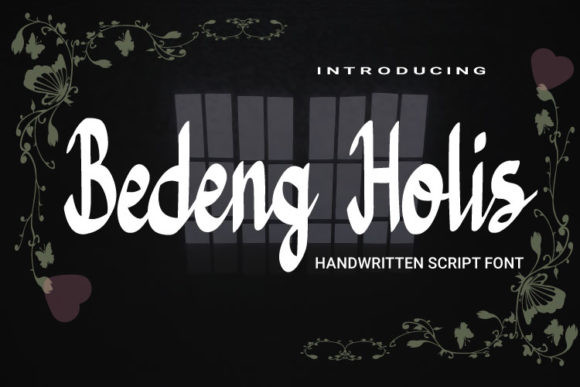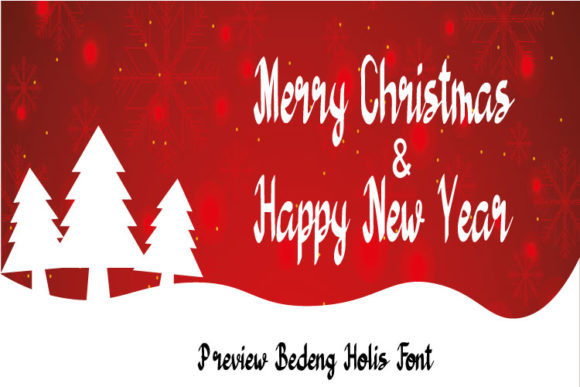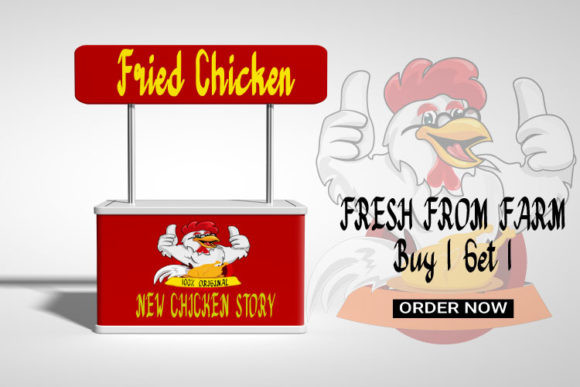
Bedeng Holis Font
Bedeng Holis is a modern handwritten font that is readable, bold and stylish. It is defined by smooth curves and is perfect for fashion branding or editorial designs. Add it confidently to your projects, and you won’t be disappointed.